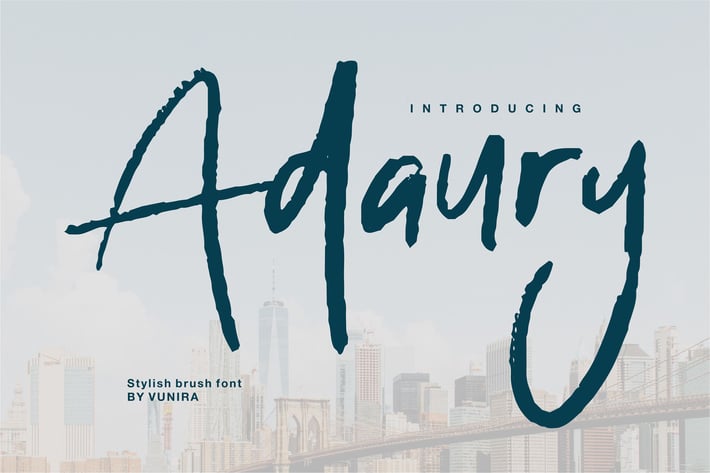
Adaury | Stylish Brush Font
Adaury | Stylish Brush Font with a calligraphy style, So beautiful on invitation like greeting cards, branding materials, business cards, quotes, posters, and more!